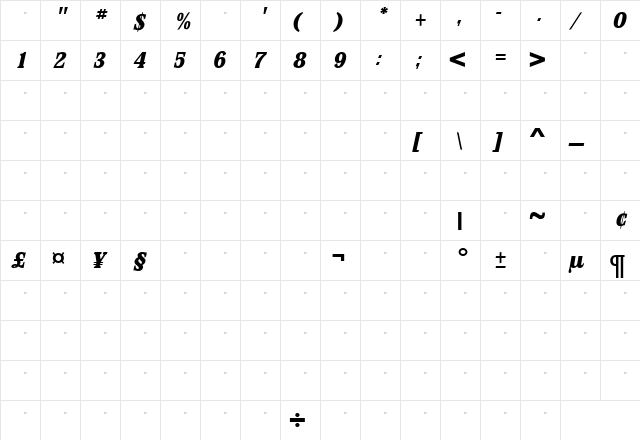
StirlingExtraBoldItalicTab Roman Font Preview
Design Context for StirlingExtraBoldItalicTab Typeface
StirlingExtraBoldItalicTab is a composed and adaptable typeface that performs quietly and consistently across a wide range of design contexts. Its italic angle brings a sense of urgency and motion to the letterforms. Its bold stroke weight gives it real presence on the page.